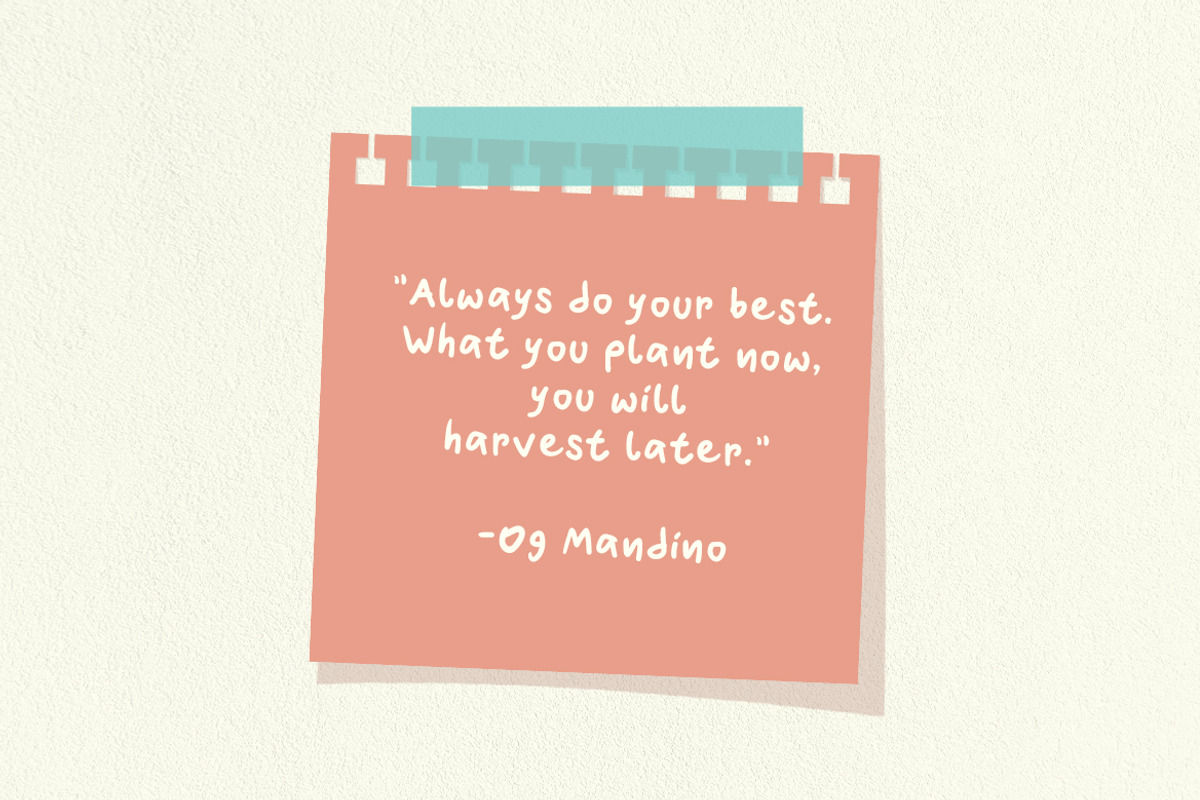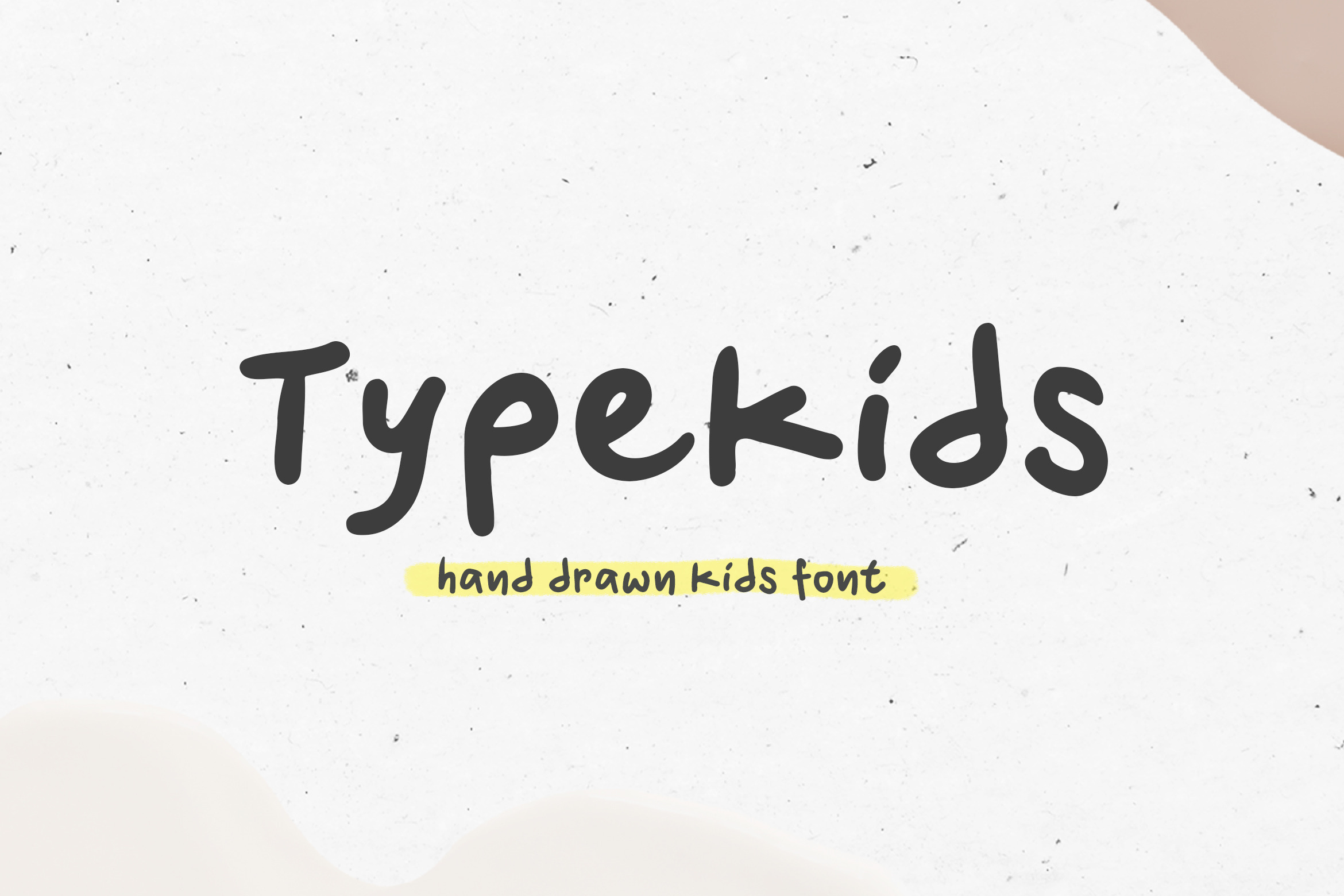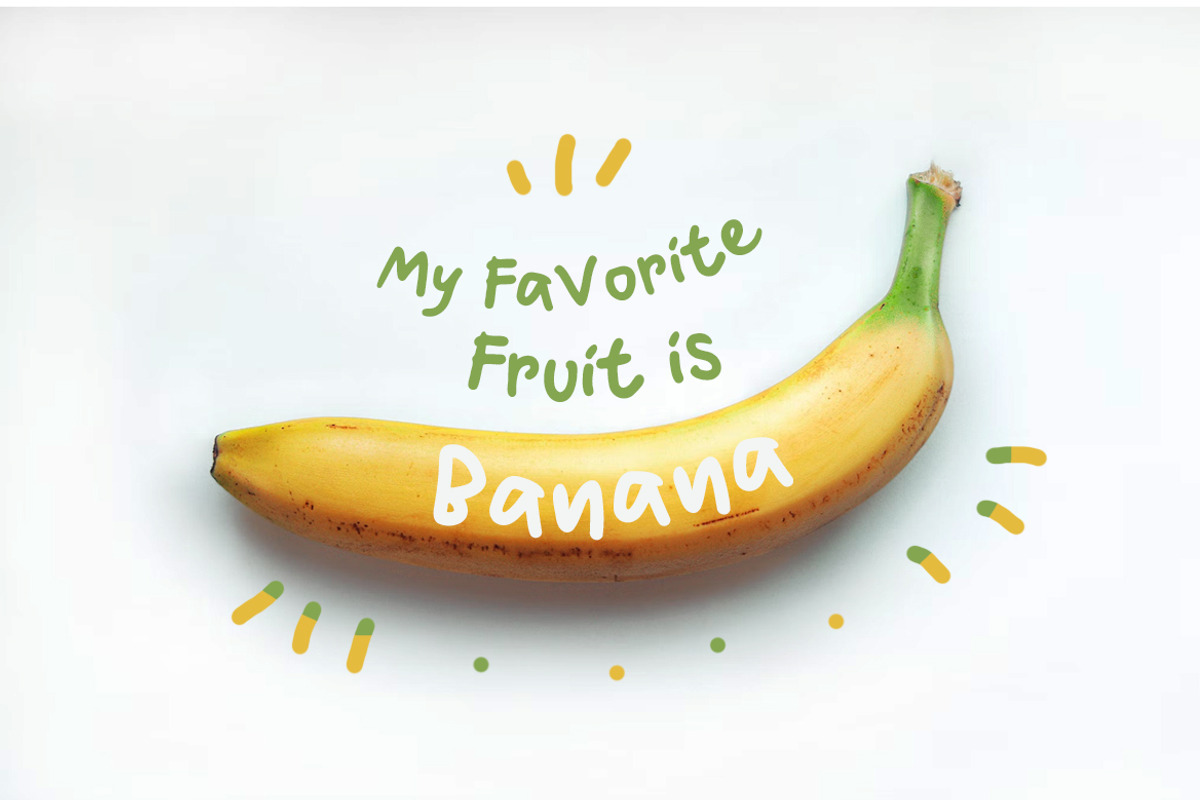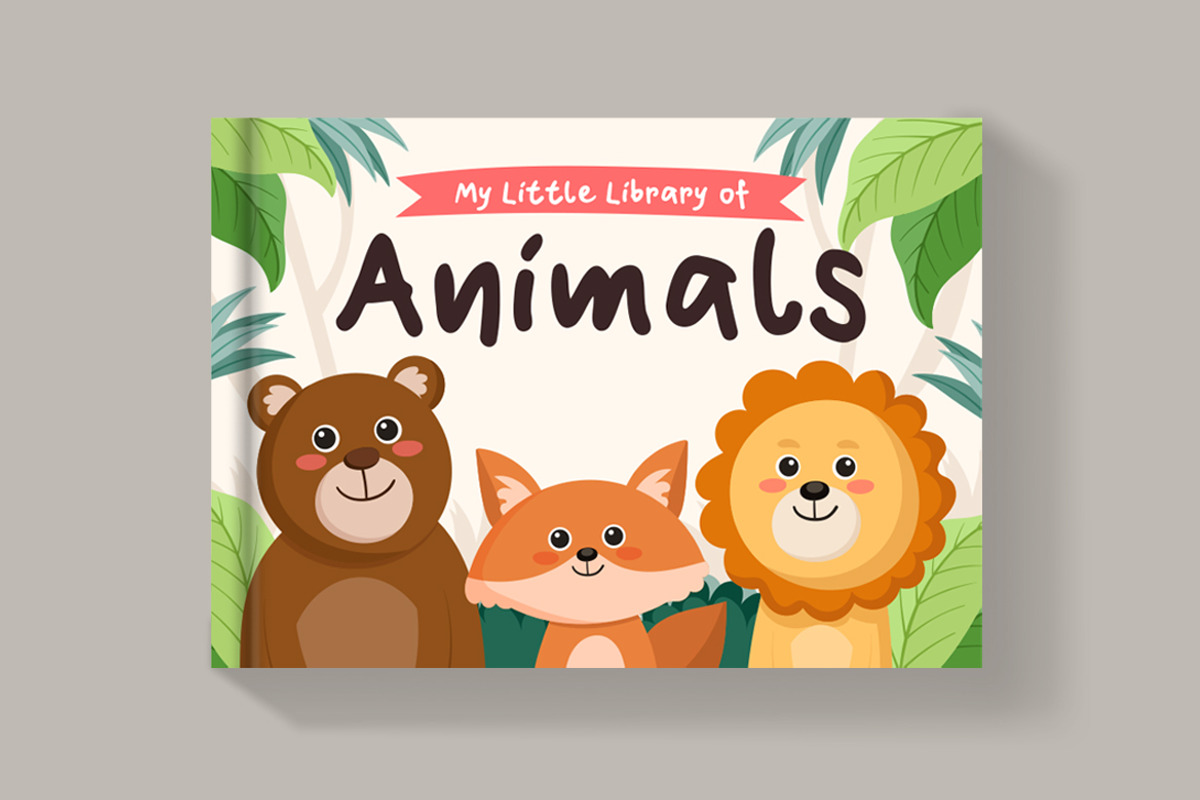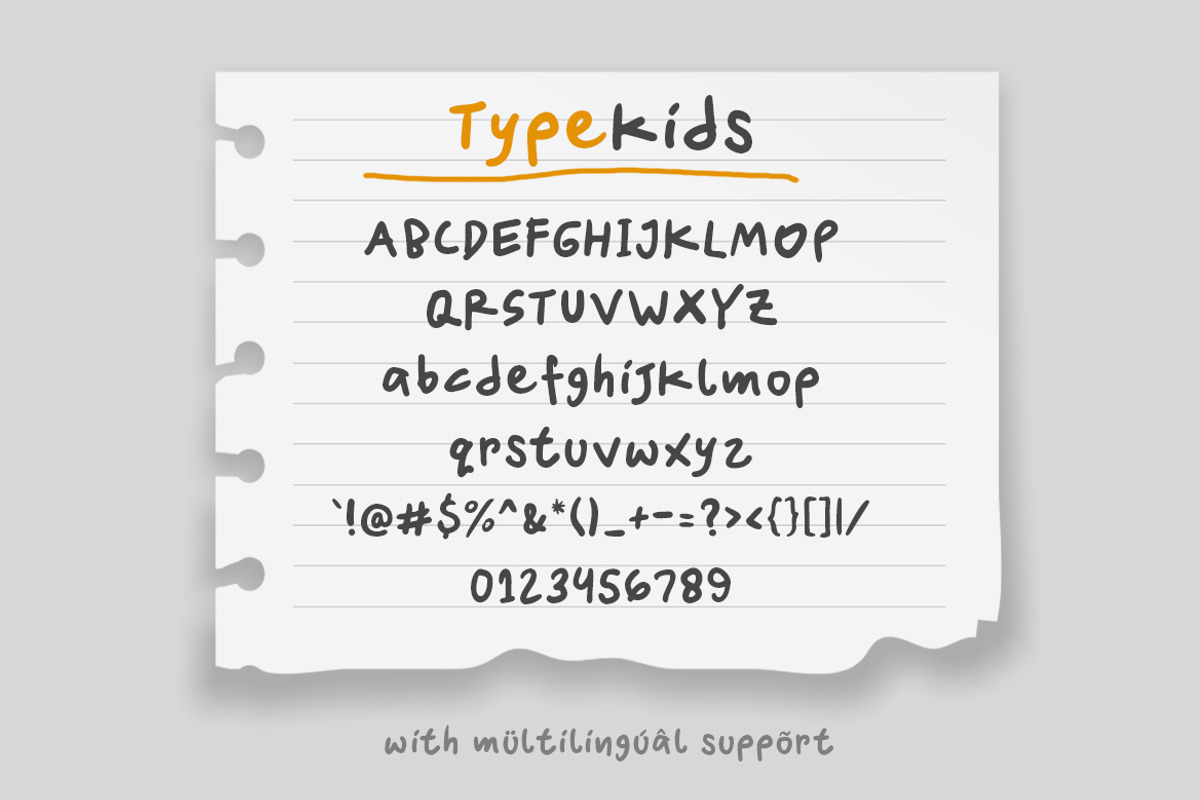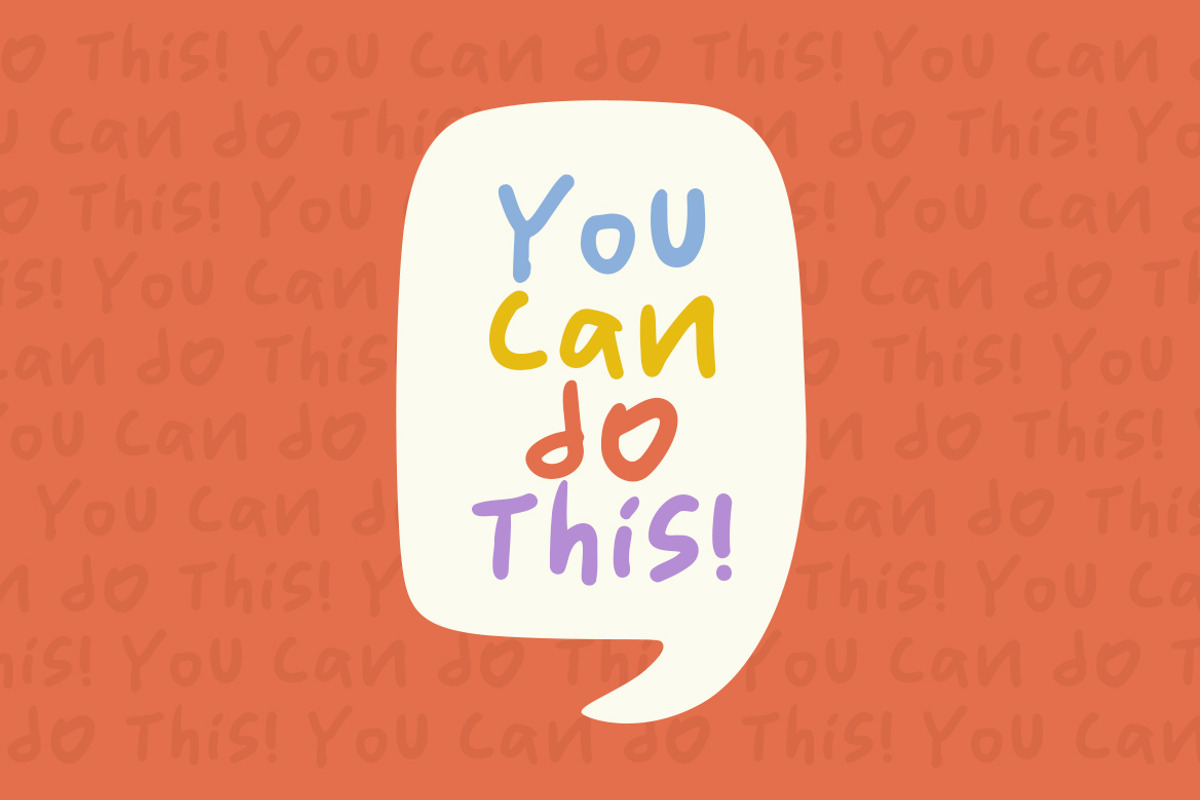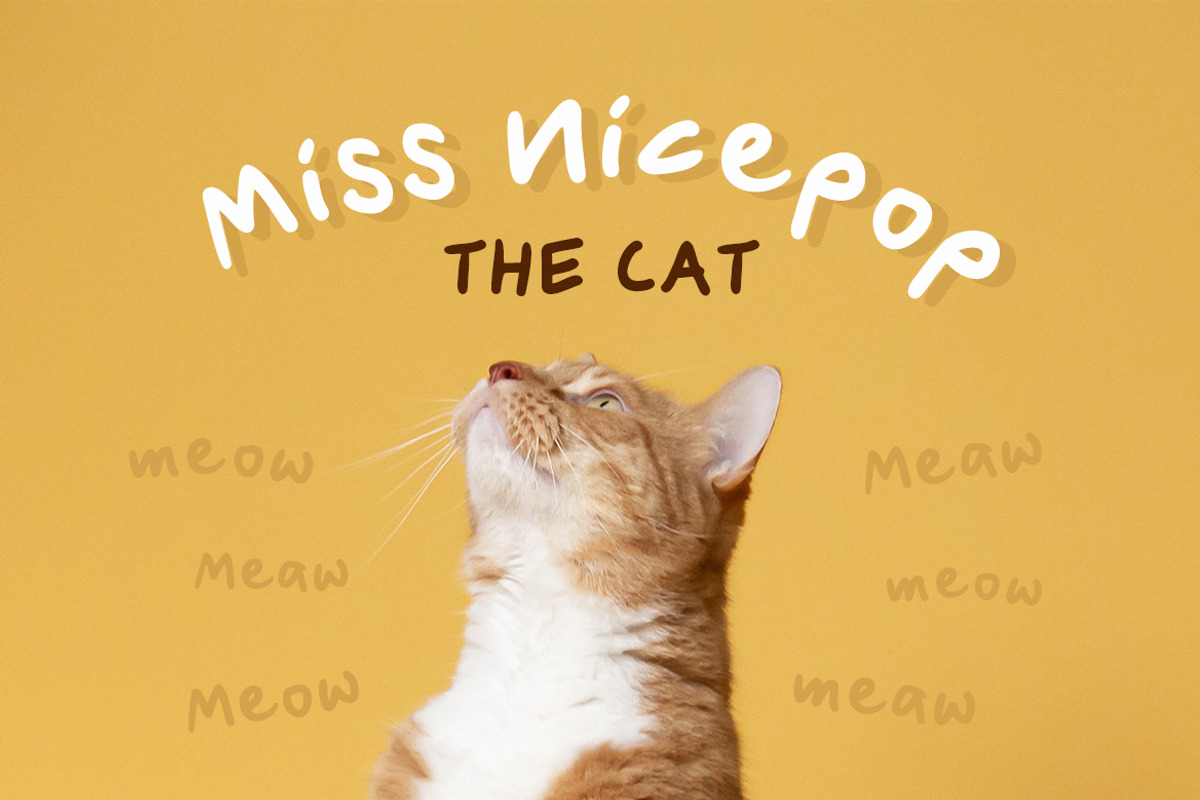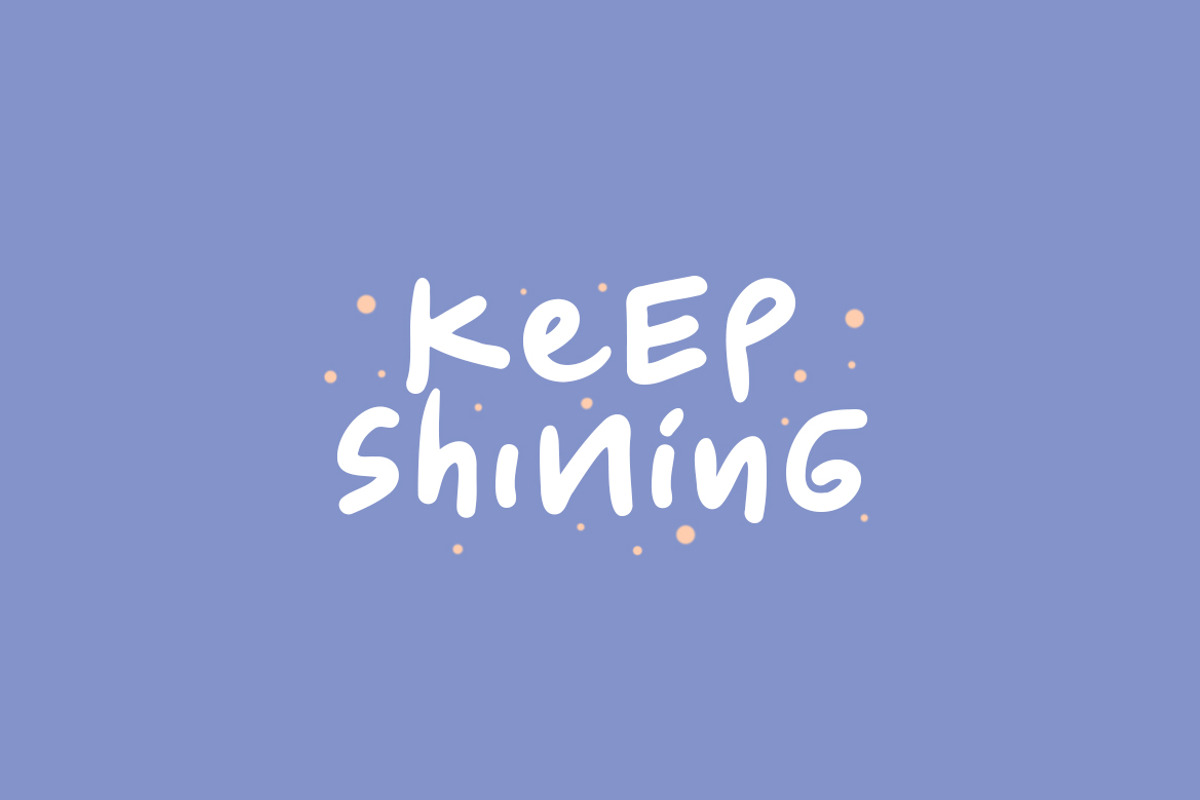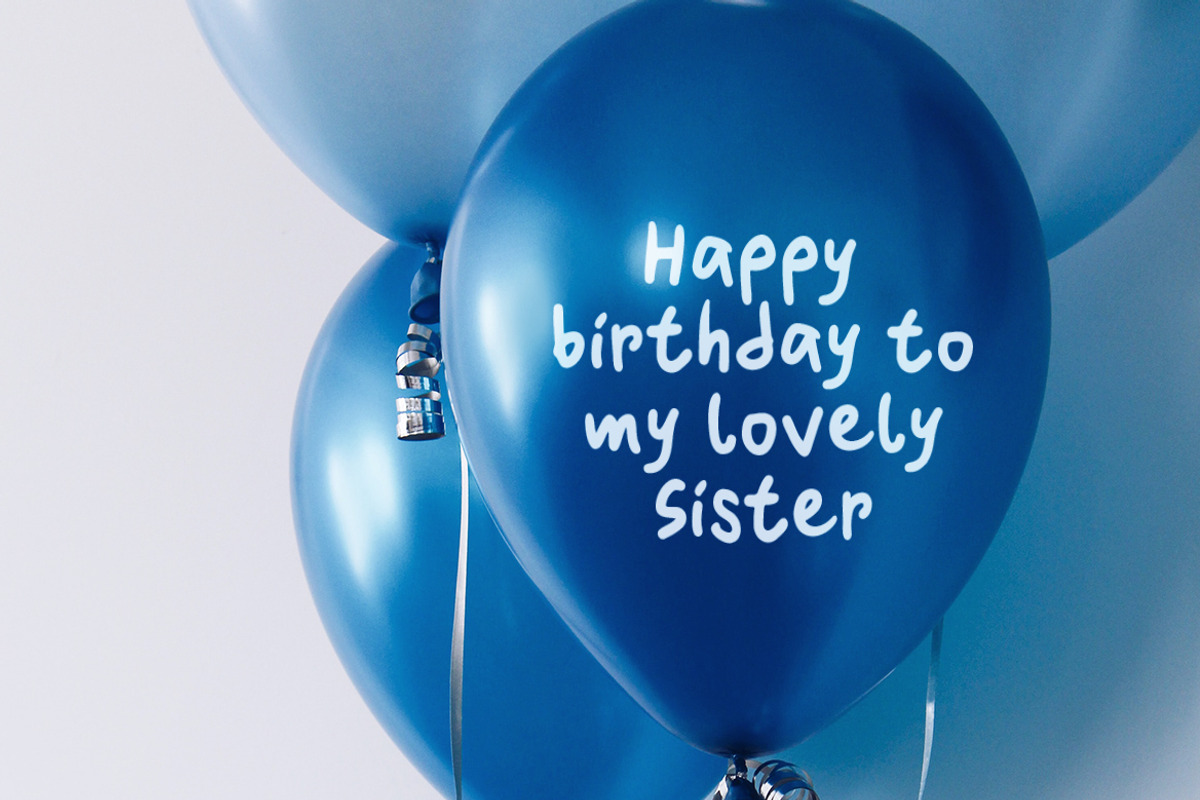
Typekids - Hand Drawn Kids Font
Introducing Typekids - Hand Drawn Kids Font, a new font with the style of the fun and doodle. Which is you can create a cute and fresh design like writing by hand.
Typekids is very suitable for logo design, kids t-shirts, birthday cards, cover books, magazines, flyers, quotes, packaging and of course much more.
This font comes in uppercase, lowercase, punctuations, symbols & numerals, and multilingual support.